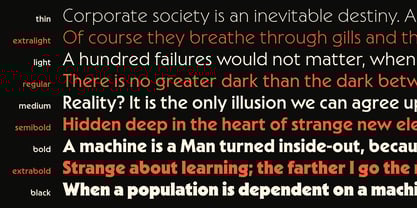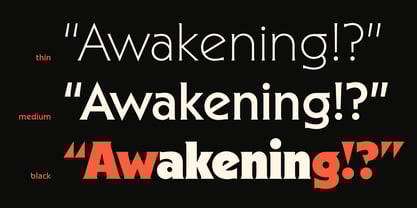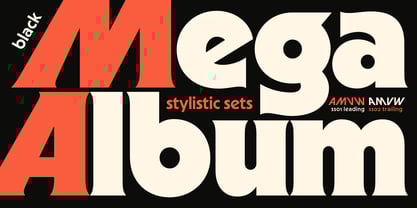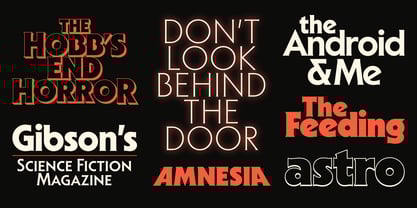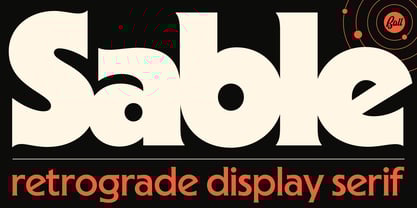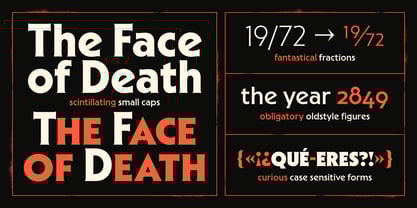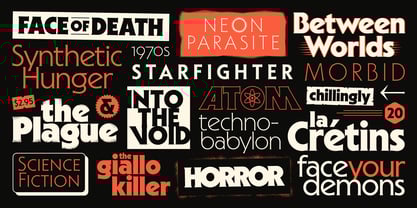
Sable
by Jonathan Ball
The Sable Font Family was designed by Jonathan Ball and published by Jonathan Ball. Sable contains 9 styles and family package options.
Sable is a striking display family inspired by the hypnotic allure of mid-century science fiction and horror paperbacks. It channels the spirit of atomic-age adventure, cosmic dread, and pulp romance in equal measure. Balancing optimism with unease, Sable fuses modernist clarity with monstrous imagination. Its lighter cuts echo the disciplined geometry of early modernism, while the heavier weights lean into the theatrical drama and gothic menace of the pulp era.
About Jonathan Ball
Jonathan Ball is a lettering and typographic designer based in Seattle, Washington. Through his deep appreciation for mid-century design aesthetics, he creates unique and contemporary typefaces that blend nostalgia with modern functionality. His work often reflects a playful yet sophisticated approach, embodying the spirit of yesterday with the design needs of today.